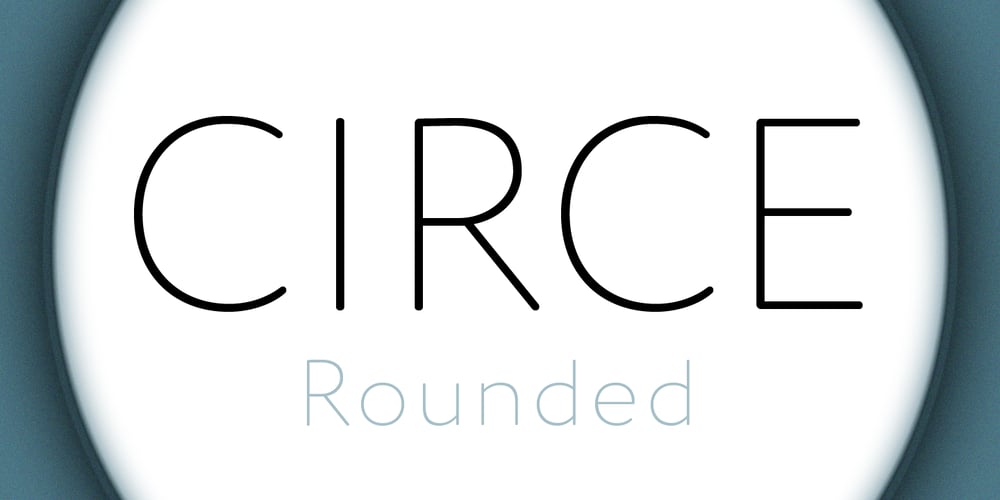
Circe Rounded Font Family was designed by Alexandra Korolkova, Alexander Lubovenko and published by ParaType. Circe Rounded contains 9 styles and family package options. Circe Rounded is an extension for a popular Circe typeface, with rounded terminals. Bold and ExtraBold faces have two variants with different radius of the roundings. Circe Rounded is even more friendly than the original Circe. The typeface is designed by Alexandra Korolkova and Alexander Lubovenko and released by Paratype in 2015. It is known that the Circe typeface is distinguished by mild and humanist nature being formally a geometric sans-serif. However, as an experiment we decided to make it even softer: Circe now has a version with rounded terminals — Circe Rounded. Rounding is generally regarded as a mechanical operation, but in this case a lot of manual adjustment was needed because of the humanist nature and peculiarities of type design. Moreover, the two bold styles now have two options: a basic one is slightly rounded and an alternate one is fully rounded. In Circe Rounded we decided to dismiss characters with swashes that are rather inappropriate in such a rounded font, but the stylistic sets and alternate characters are remaining. Rounded terminals make an open and friendly typeface even more childish. For example, in quite large point sizes (because the x-height is still not big) it can be used as a body type in infant books. Circe Rounded, similar to Circe, has alternative forms of lowercase characters, which are called “infant” and are used in publications for children’s reading. However, a humanist basis is preserved alongside with its softness and it does not allow it to be as “plasticine” as many other rounded fonts. Two of the most obvious areas of possible application of Circe Rounded are everything for children and everything edible, especially all that is sweet. However, we believe that there are other options.